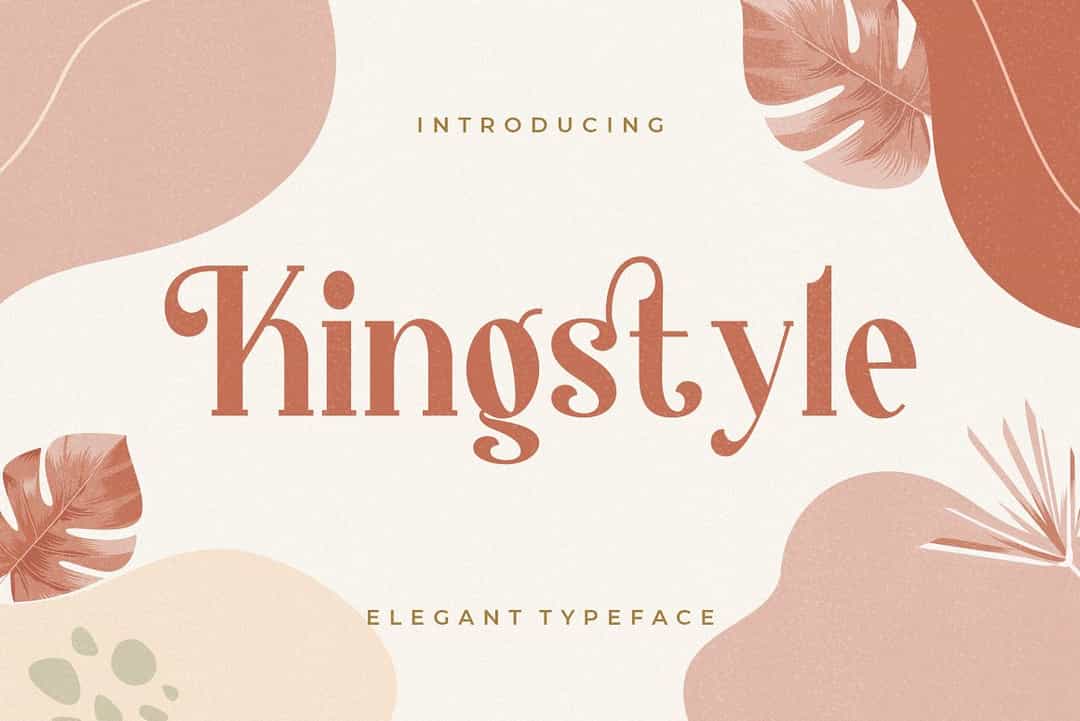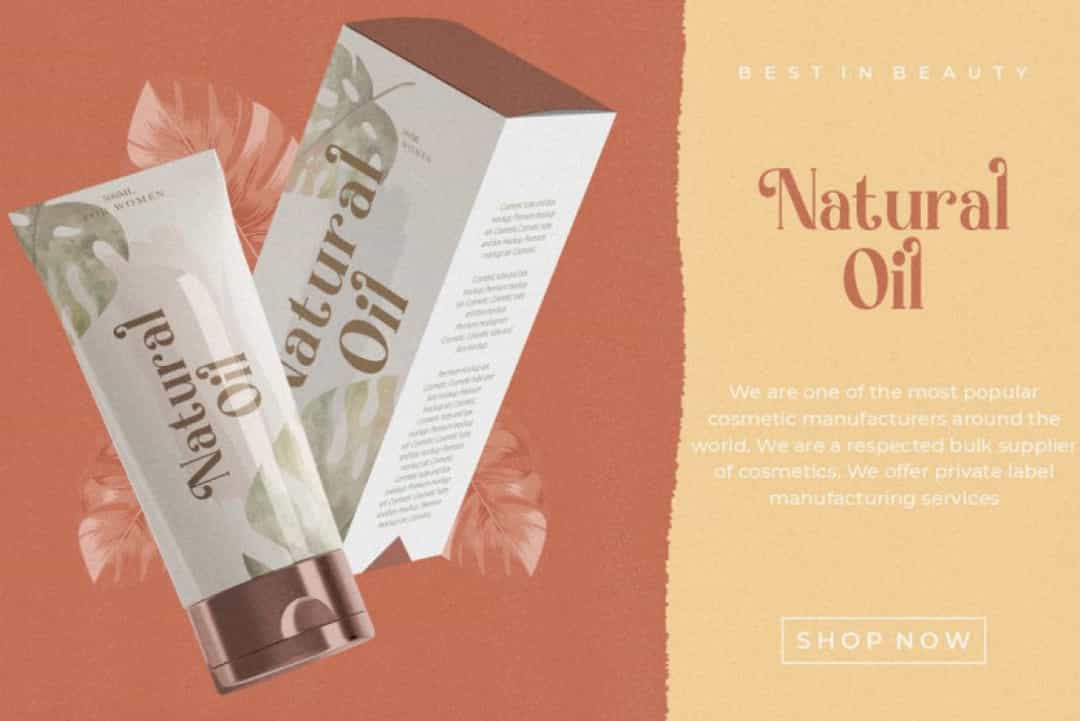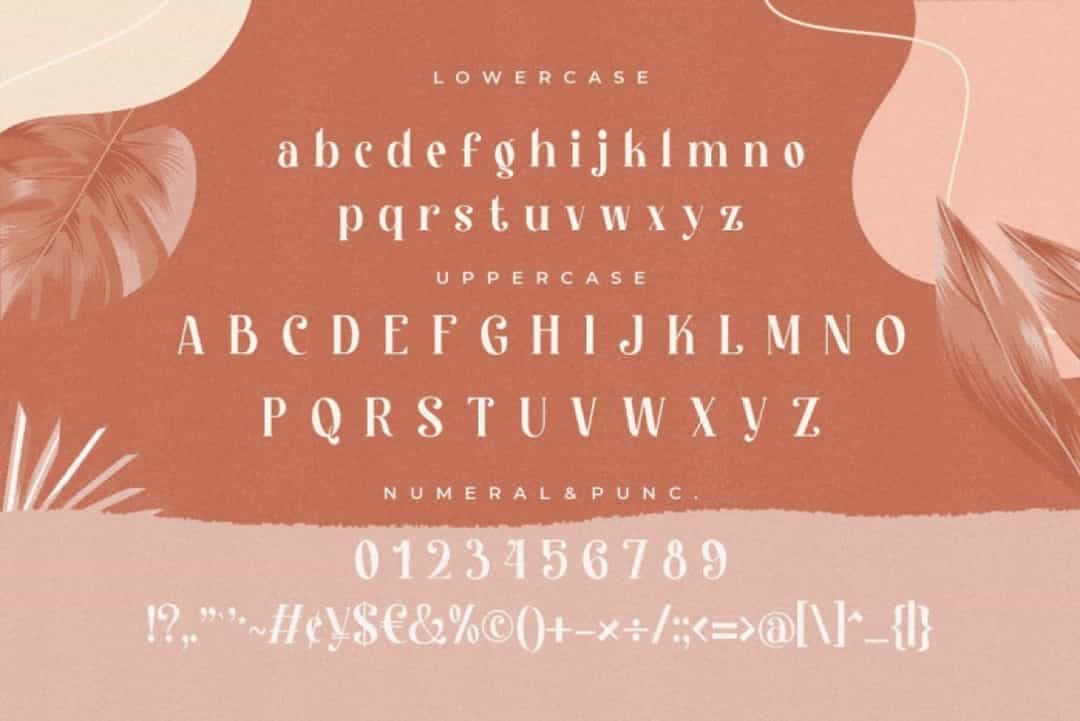
Kingstyle is a splendid serif font with swirls swashes makes the font look elegant and is suitable for logos, branding and wedding purposes. Further, it also has uses in posting on social networks, labeling of products, designing of products, water mark invitations, card and any other work that involves handwriting.